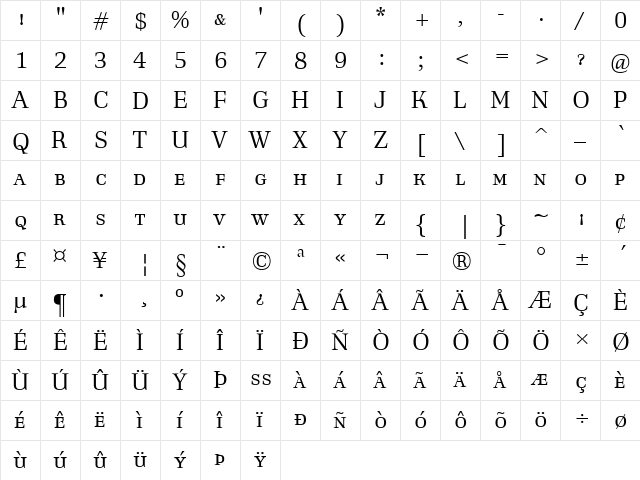
Richler-SmallCaps Regular
Design Context for Richler-SmallCaps Typeface
Richler-SmallCaps takes a measured approach to typography — its balanced proportions and neutral character make it a reliable workhorse for both digital and print work.